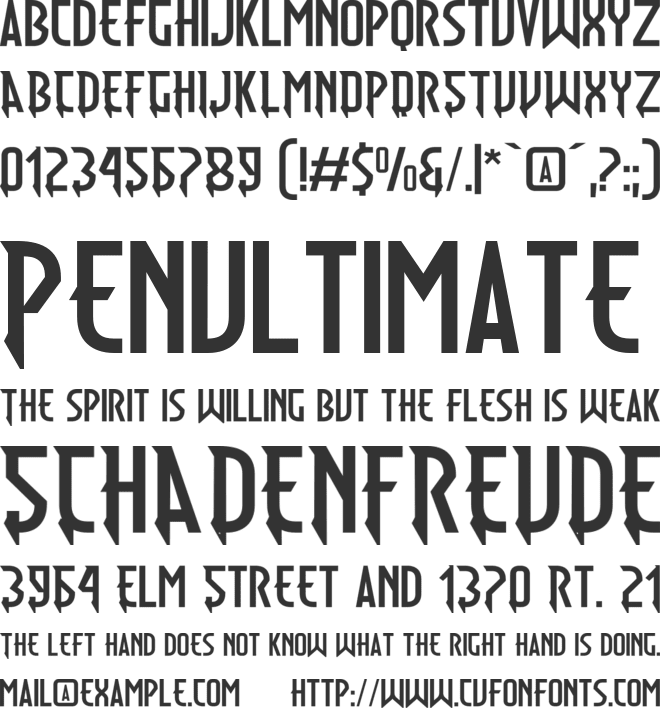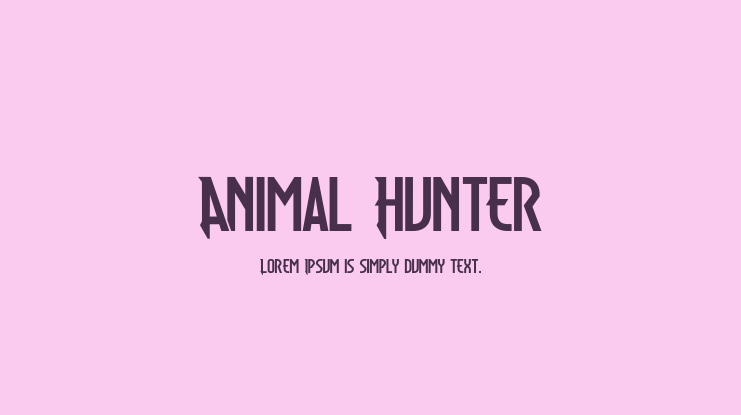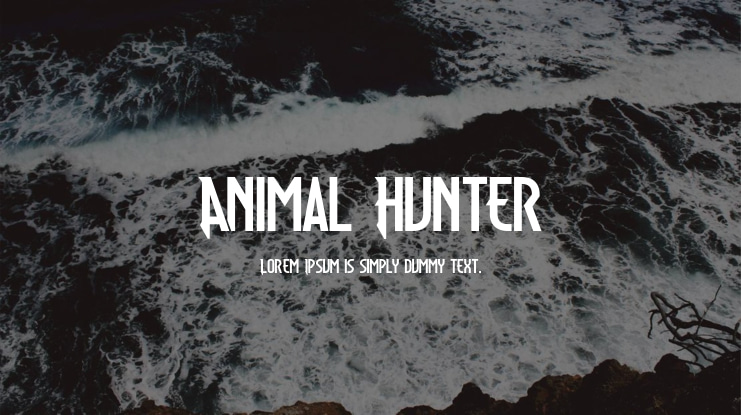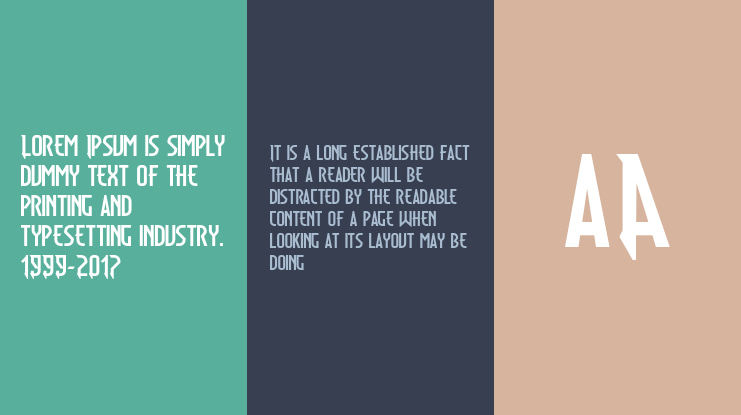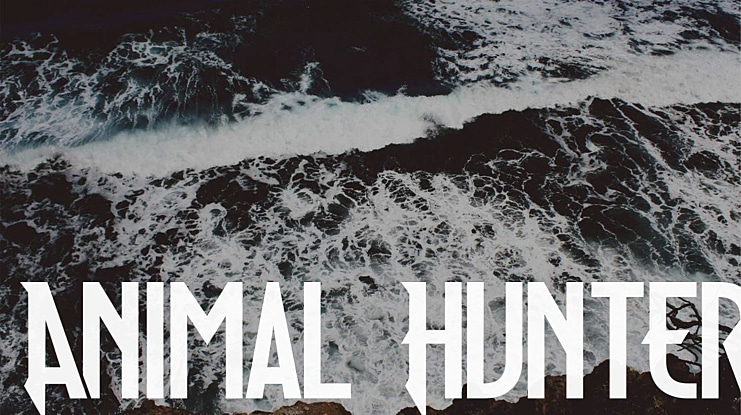
Animal Hunter Font
Hilton Santos
EN - This unique font is characterized by the presence of only one sharp serif, skillfully positioned to give it an aggressive and distinctive appearance. This typographic singularity seamlessly blends the minimalism of sans-serif fonts with the visual intensity of a serif, resulting in a design that will undoubtedly catch the eye and make your message stand out.
PT - Esta fonte única é caracterizada pela presença de apenas uma serifa nítida, habilmente posicionada para lhe dar uma aparência agressiva e distinta. Esta singularidade tipográfica combina perfeitamente o minimalismo das fontes sem serifa com a intensidade visual de uma serifa, resultando em um design que sem dúvida chamará a atenção e fará com que sua mensagem se destaque.